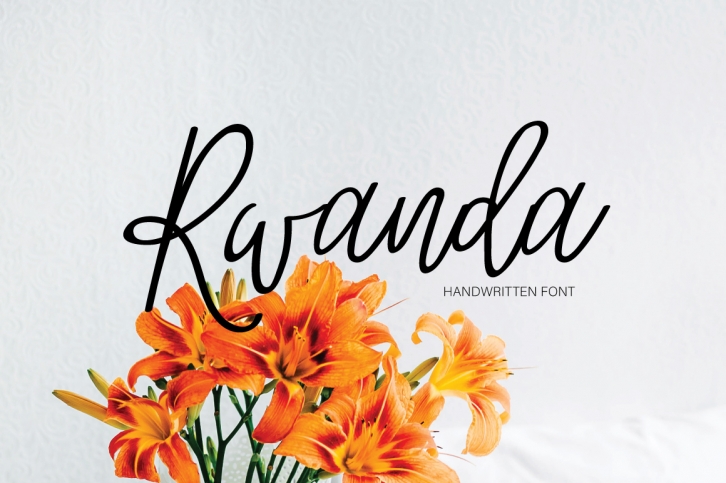
Rwanda is a gorgeous font that was realeased on November 3, 2017. The font can be used in many style contexts and design environments. Perfect for invitations, magazines, websites, logos, and more! It was designed by Paula Type and the file size is 1.52 MB. Thanks for checking out this font!